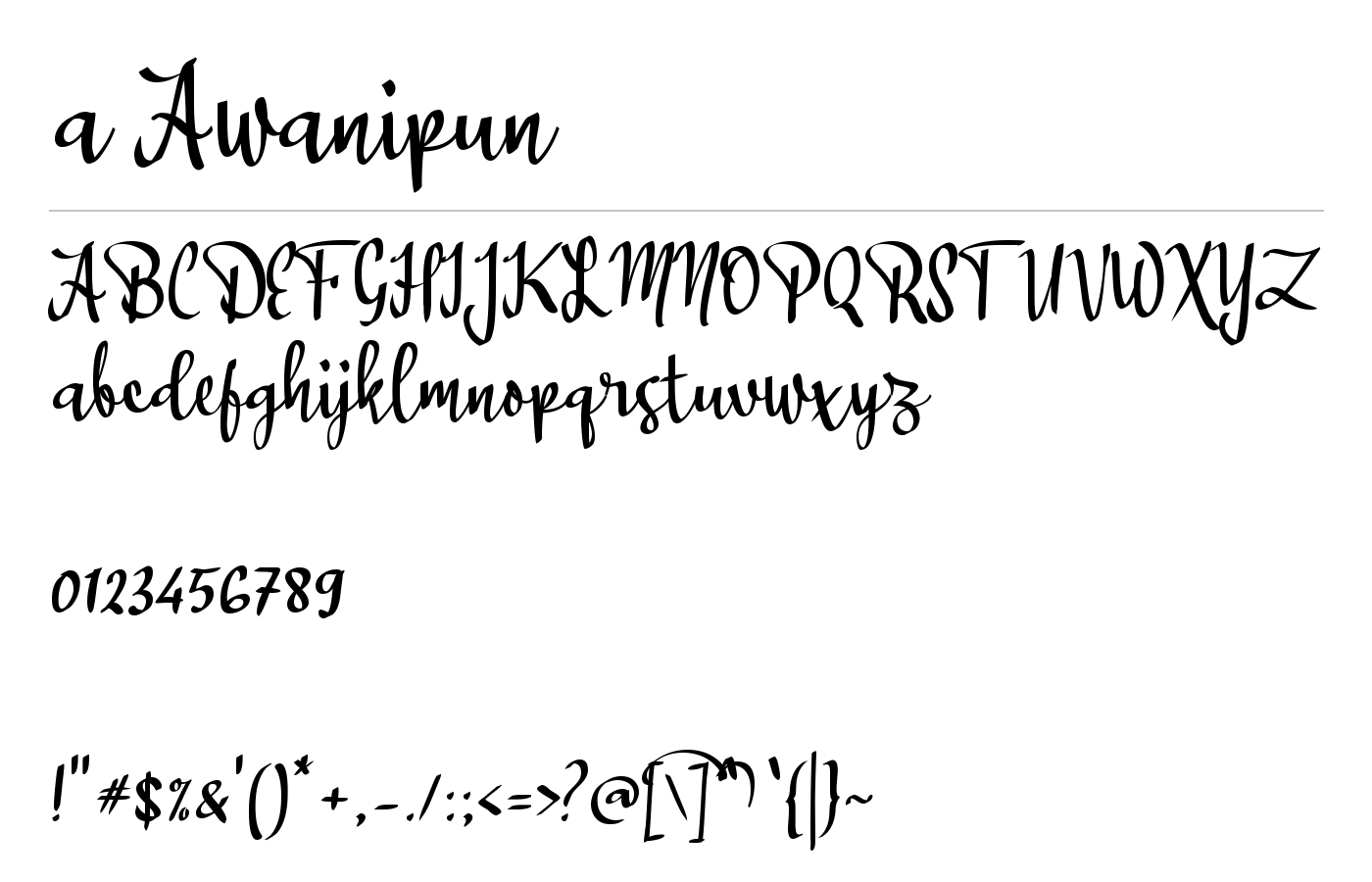
Awanipun is an elegant script font with a calligraphic touch, featuring fluid and expressive letterforms that combine both sharp and smooth strokes. Its distinctive uppercase characters and flowing lowercase letters create a sophisticated yet approachable feel, ideal for invitations, branding, and decorative headlines. This font’s graceful style makes it perfect for luxury and creative projects that seek a personal, handcrafted impression.
a Awanipun Font